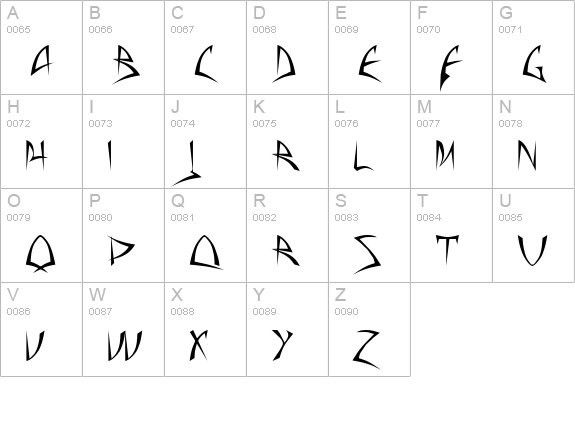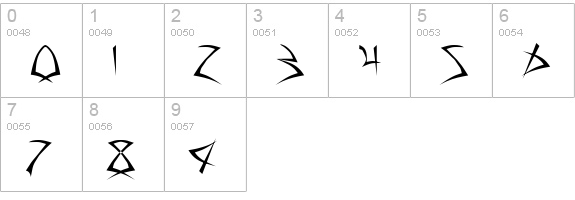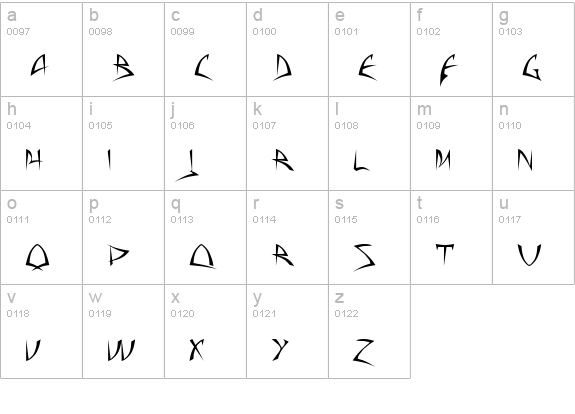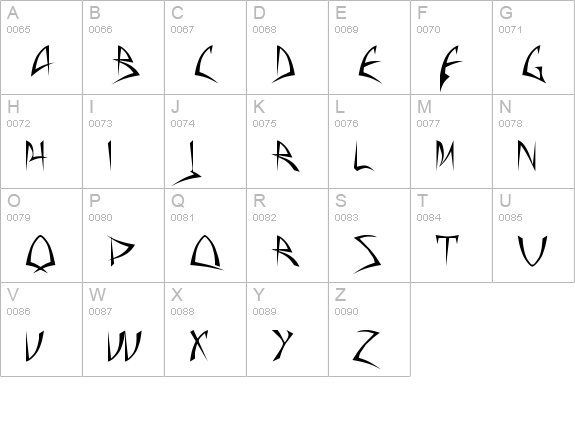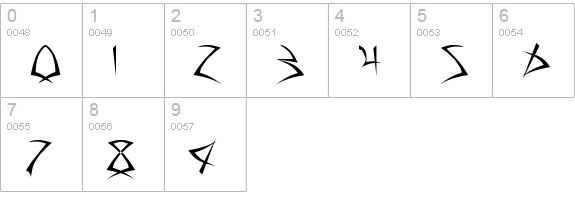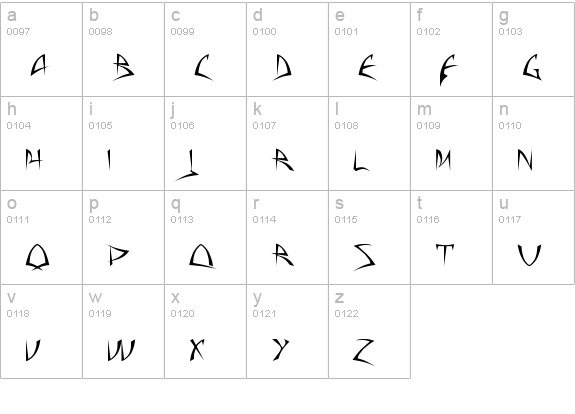
Baphomet Font Details
Introducing Baphomet font - a captivating and mysterious typeface that is sure to make a bold statement in your design projects. Inspired by ancient symbols and occult aesthetics, Baphomet font features intricate and intricate details that exude a sense of mystique and power. This unique font offers a perfect blend of elegance and edginess, making it ideal for a wide range of creative applications. Whether you're working on branding, packaging, posters, or any other design project, Baphomet font is sure to add a touch of intrigue and sophistication. What's even better is that Baphomet font is completely free to download at FontsMarket.com. So go ahead and unleash your creativity with this captivating typeface and give your designs a touch of magic and mystery.